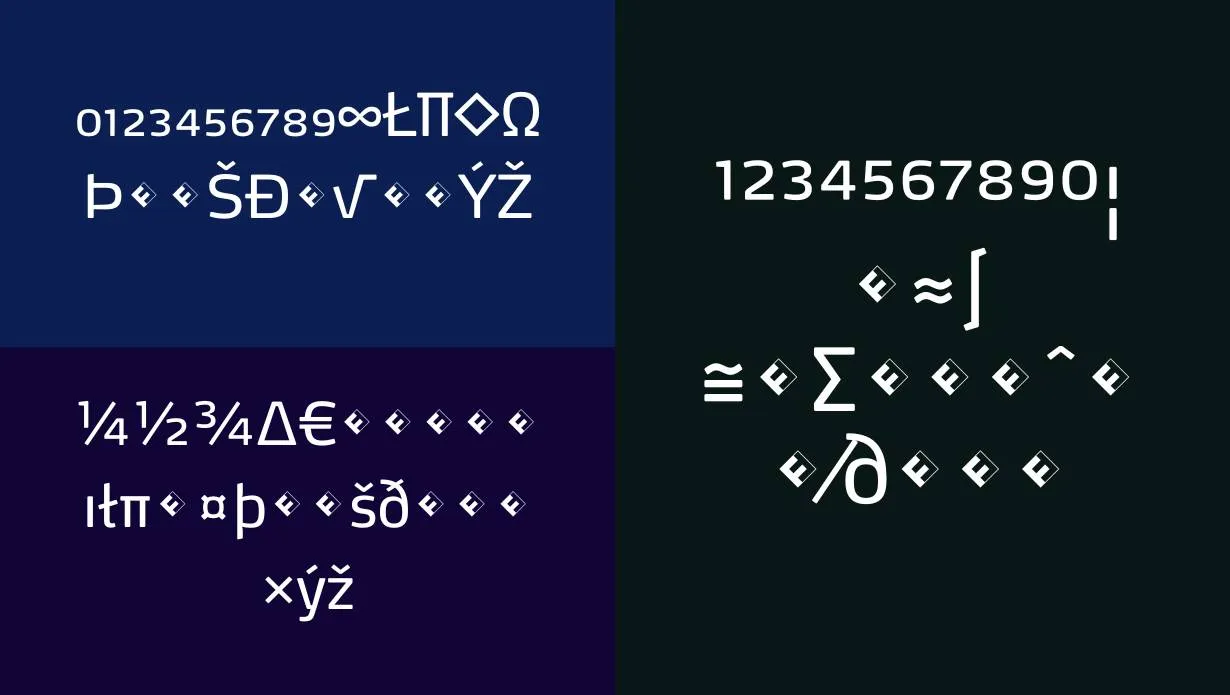
The Max RegularExpert font stands out as a versatile typeface suitable for various design applications. Its balanced and professional appearance makes it a favorable option for logos, branding, or any project where a clear and modern presentation is sought.
This font’s clean and straightforward style ensures a timeless and professional look, catering to a wide range of design needs with its adaptability and reliability.